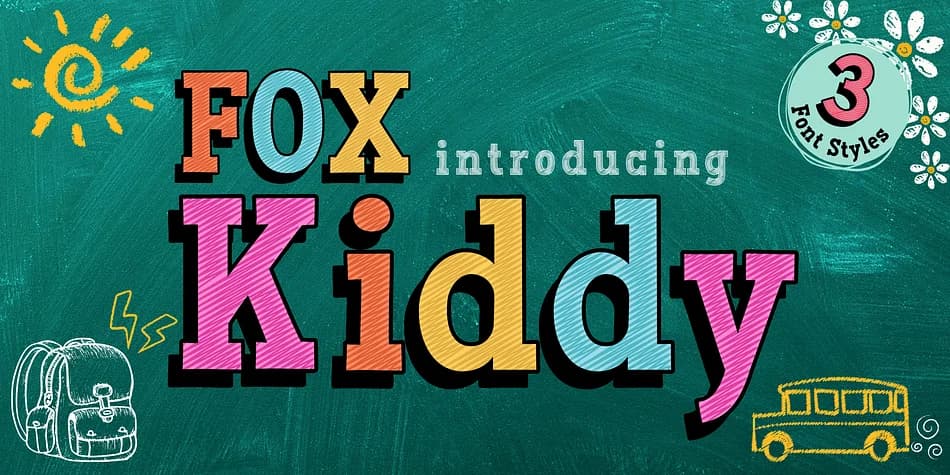
Picture yourself designing a birthday invitation suite for a seven-year-old, or maybe assembling a classroom bulletin board that needs to grab kids' attention the moment they walk in. Fox Kiddy, created by Fox7, is the display font you'd reach for. Its chunky letterforms and hand-drawn feeling make it instantly recognizable as work meant for children, with enough personality to feel genuinely playful rather than trying too hard.
The font comes in three distinct styles that work independently or layered together for different effects. The Regular version delivers bold, clean letterforms when you need straightforward visual impact. Scribble takes the same letter shapes and renders them with sketchy, unfinished edges, mimicking the look of handwritten doodles and marker work. Shadow layers depth beneath each letter, making words appear dimensional and giving them visual pop without needing to resort to effects or filters.
You'll find this font especially useful for kids' birthday invitation suites, classroom poster designs, craft project labels, and storybook covers. The letterforms hold up well when printed small, and they keep that hand-drawn warmth even when sized up large. It's the kind of font that works because it doesn't pretend to be anything other than what it is. Grab it on Creative Fabrica and start putting it to work.
Fox Kiddy : 3 Font is a decorative font that shines as a display or heading face. Pair it with a clean sans-serif or serif font for body text — the contrast creates a clear hierarchy while the two styles stay balanced and easy to read.